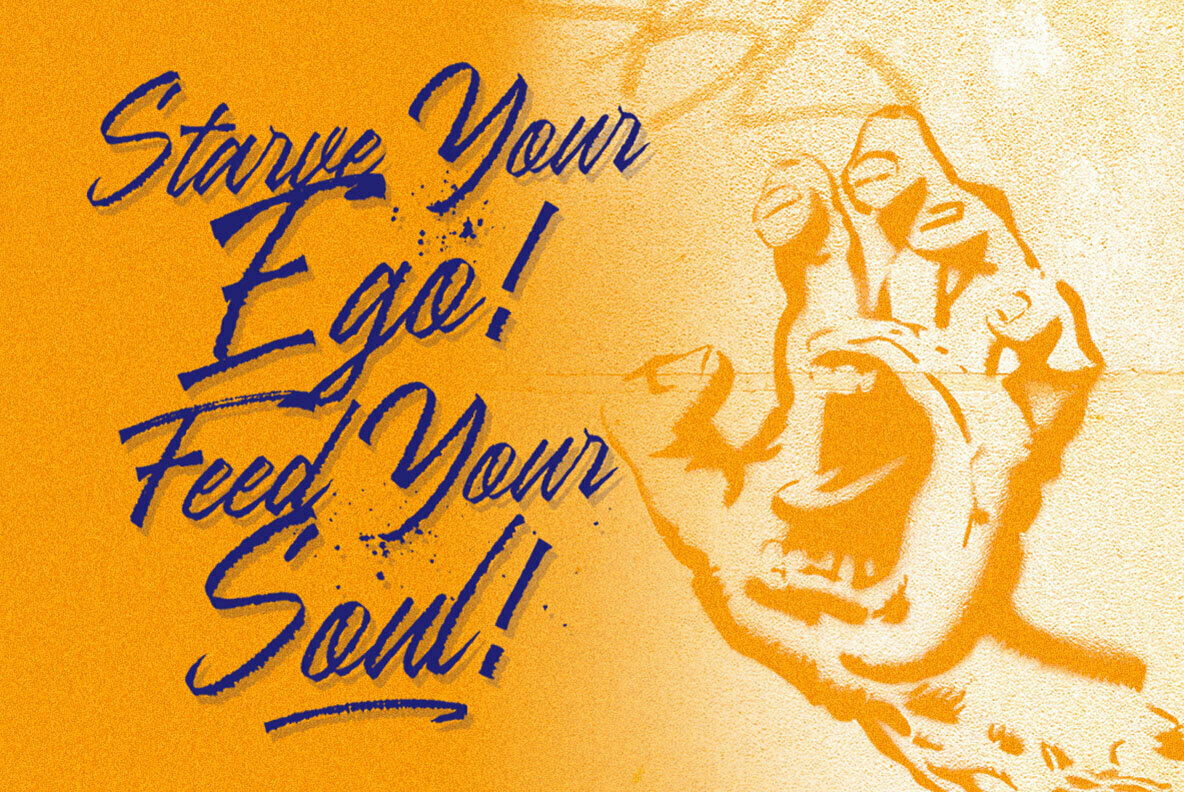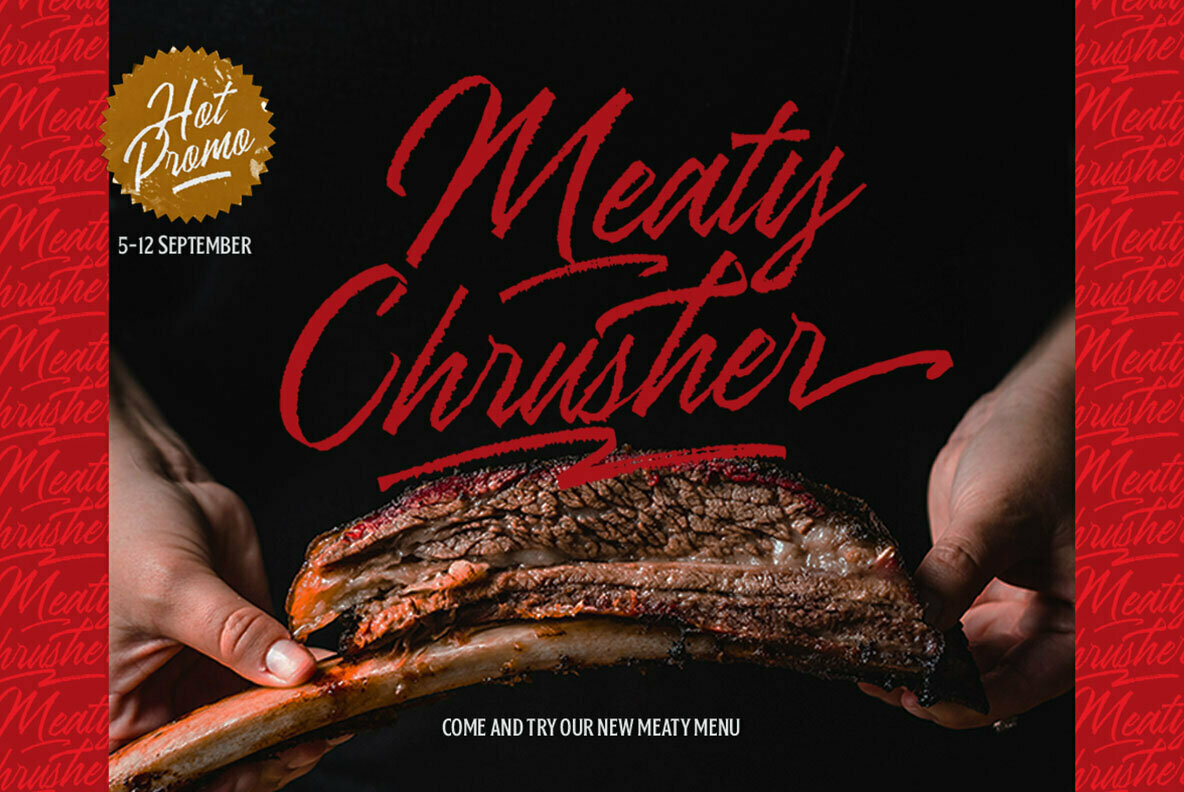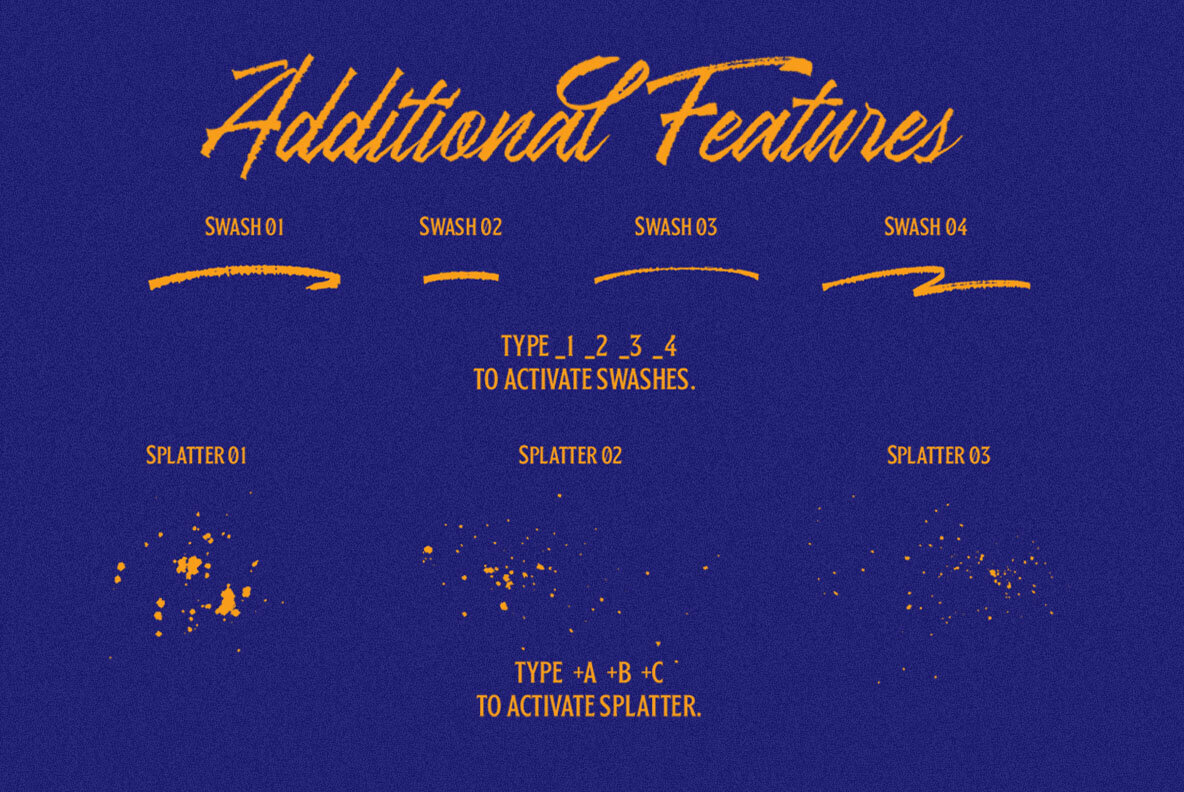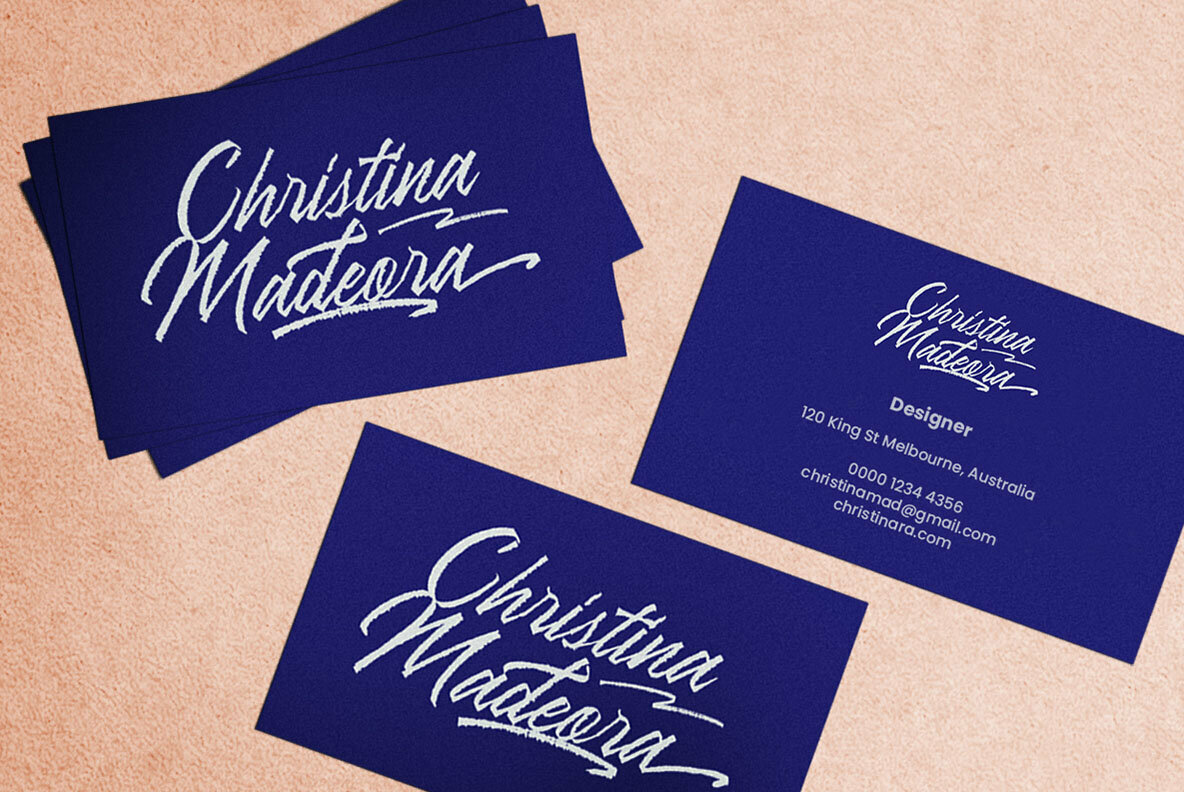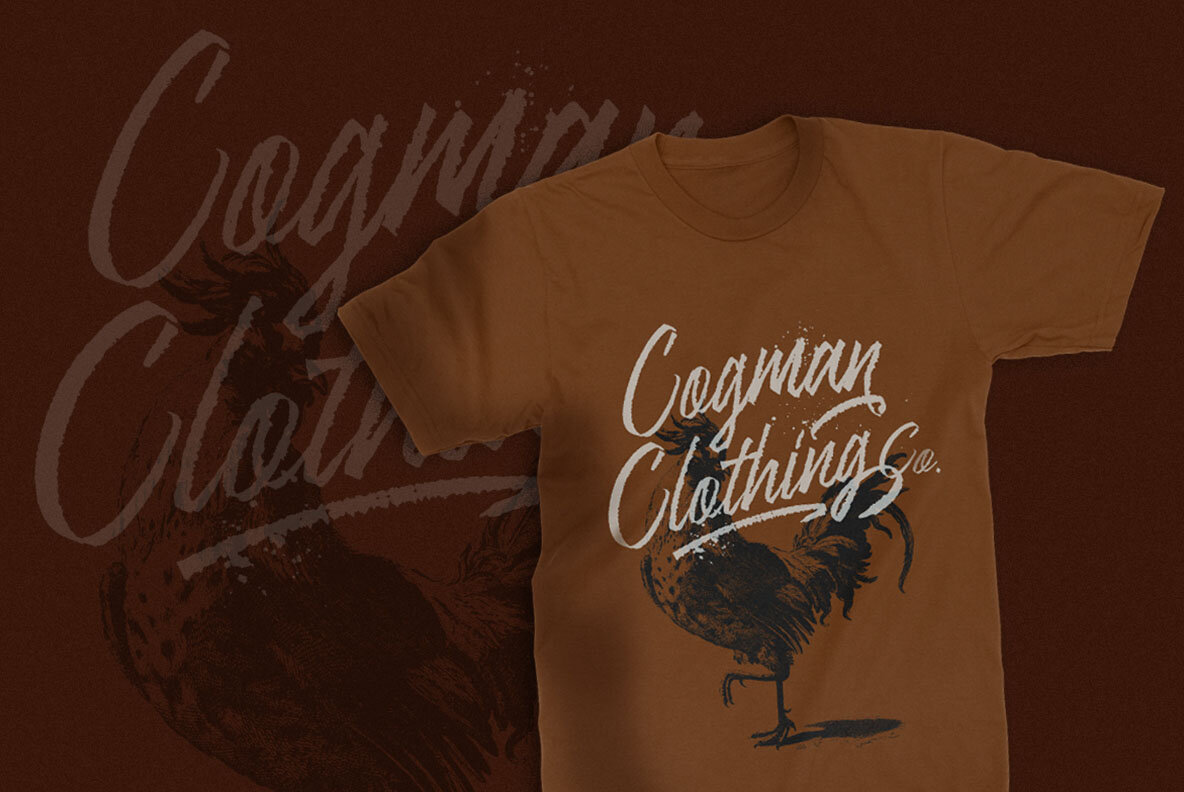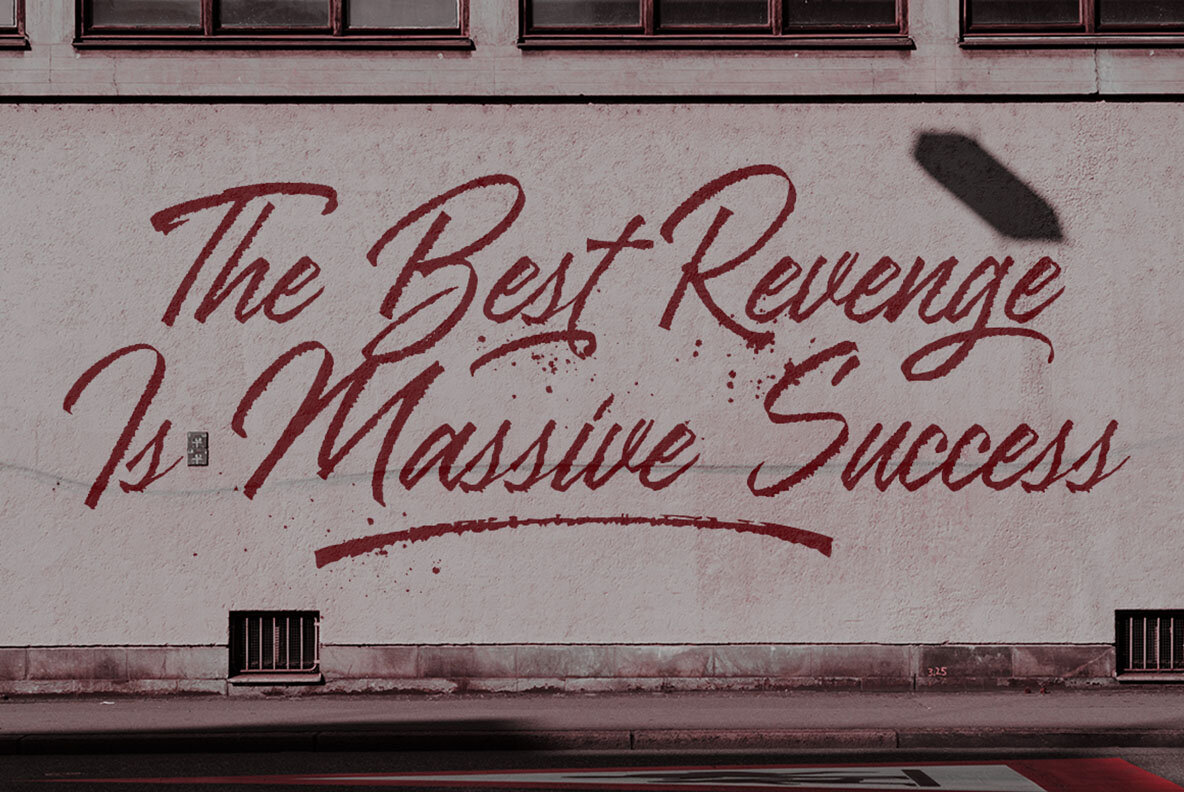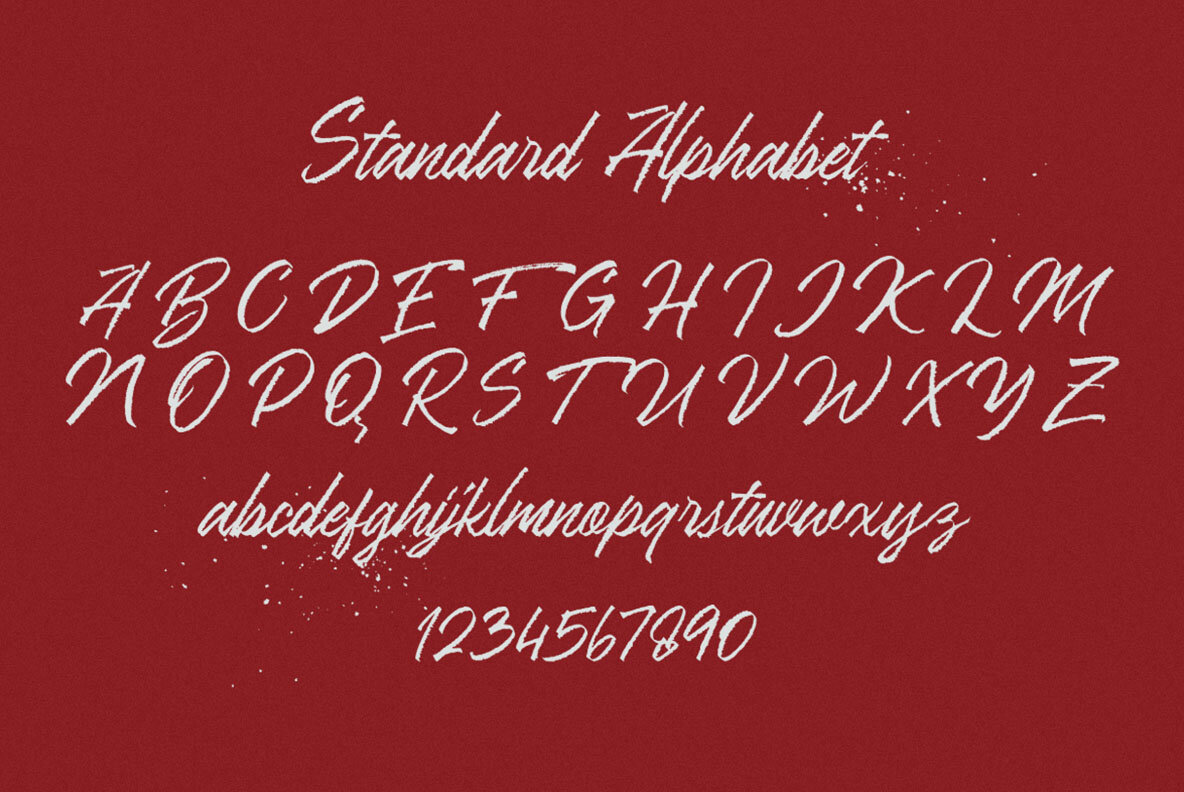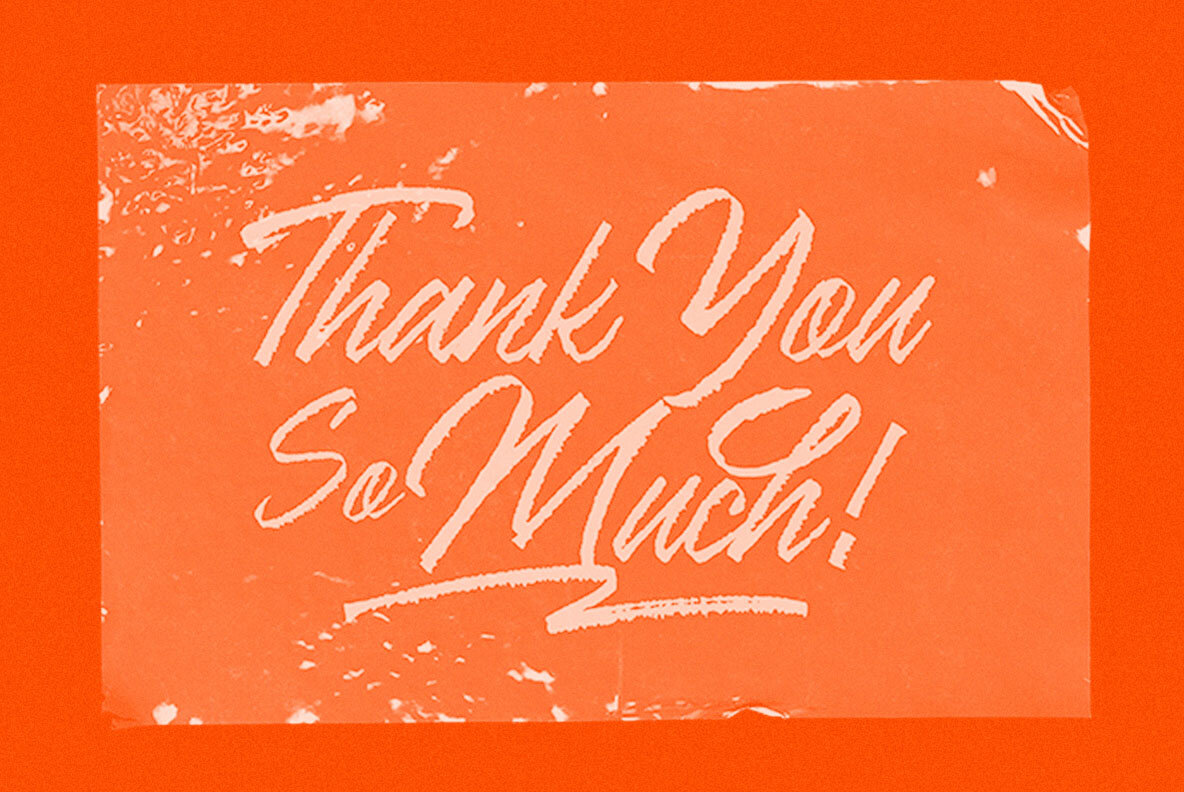
Ranshell Font
Ranshell Regular
Explore the raw beauty of calligraphy with the Ranshell font, evoking the authentic essence of hand-brushed lettering. Its textured strokes impart a robust and edgy appearance, ideal for conveying sophistication across a multitude of design applications. This versatile script shines in apparel branding, logo creation, and book covers, seamlessly integrating into both traditional and contemporary contexts. Whether crafting wedding invitations, fashion statements, or advertising materials, Ranshell lends a distinguished character to your designs. Utilize tools such as Adobe apps and Corel Draw to fully harness Ranshell's rich OpenType features, including its varied Glyph panels, for unmatched creative control.Ranshell: A Dynamic Dry Brush Script